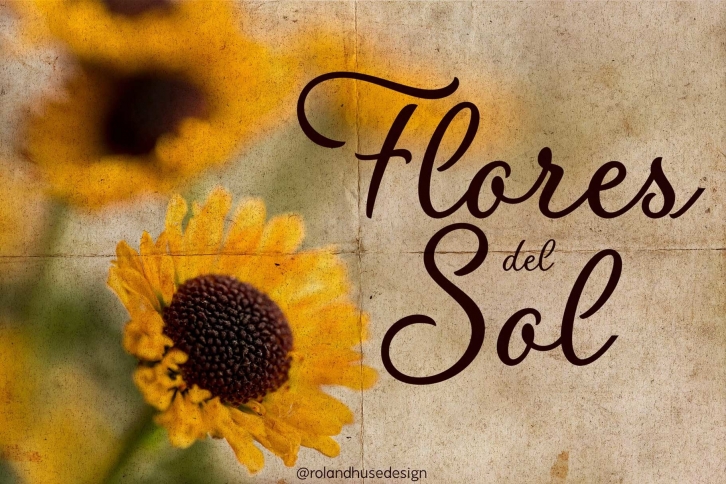
Flores del Sol is a cursive, calligraphic script font with swashed characters and stunning ligatures.
It is elegant yet friendly and playful and is perfect for logotypes, floral and boutique themes, T-shirts, scrapbooking postcards, or even weddings and name cards.